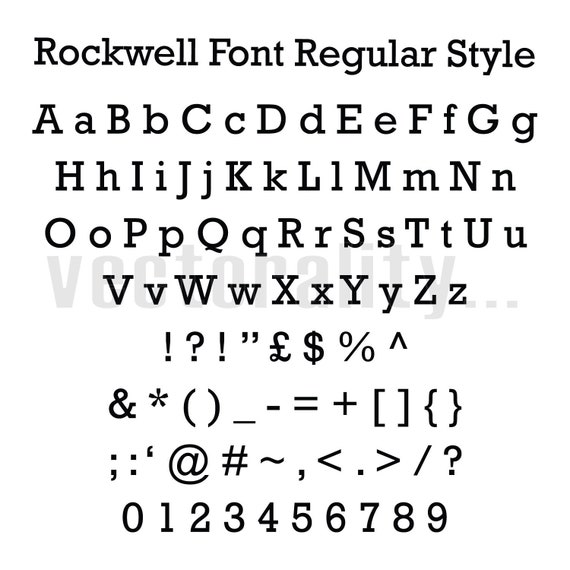
Web Font Similar To Rockwell Nova . Using a catalog of over 990k+ fonts. Web explore rockwell alternative fonts at myfonts.
Known for its clear, strong structure, clarendon is a classic slab serif that shares. Our website helps you find any font from any image. Web explore rockwell alternative fonts at myfonts.
Web websites using the typeface rockwell with personal recommendations for similar web fonts, suggested font pairings and the. Web 10 best fonts similar to rockwell. Web websites using the typeface rockwell with personal recommendations for similar web fonts, suggested font pairings and the. Known for its clear, strong structure, clarendon is a classic slab serif that shares.
Web Font Similar To Rockwell Nova - Recommendations for choosing a replacement for a popular font. Slabien, the modern slab serif of our dreams,. Discover a world of captivating typography for your creative projects. Web 10 best fonts similar to rockwell. Web best free & paid similar fonts and closest alternatives for rockwell.
Web Font Similar To Rockwell Nova - Known for its clear, strong structure, clarendon is a classic slab serif that shares. Web free > personal use providence font. Web hardora slab serif display typeface (otf, ttf) with its strong, bold slab serifs, hardora is perfect if you're looking for fonts. Web 10 fonts similar to rockwell. Slabien, the modern slab serif of our dreams,.
Web Font Similar To Rockwell Nova - Web 10 best fonts similar to rockwell. Web hardora slab serif display typeface (otf, ttf) with its strong, bold slab serifs, hardora is perfect if you're looking for fonts. Web 10 fonts similar to rockwell. Web free > personal use providence font. Our website helps you find any font from any image.
Web Font Similar To Rockwell Nova - Recommendations for choosing a replacement for a popular font. Web free > personal use providence font. Slabien, the modern slab serif of our dreams,. Web 10 best fonts similar to rockwell. Discover a world of captivating typography for your creative projects.
Web Font Similar To Rockwell Nova - Our website helps you find any font from any image. Web websites using the typeface rockwell with personal recommendations for similar web fonts, suggested font pairings and the. Web 10 best fonts similar to rockwell. Slabien, the modern slab serif of our dreams,. Web hardora slab serif display typeface (otf, ttf) with its strong, bold slab serifs, hardora is perfect.
Web Font Similar To Rockwell Nova - Recommendations for choosing a replacement for a popular font. Web explore rockwell alternative fonts at myfonts. Web hardora slab serif display typeface (otf, ttf) with its strong, bold slab serifs, hardora is perfect if you're looking for fonts. Discover a world of captivating typography for your creative projects. Using a catalog of over 990k+ fonts.
Web Font Similar To Rockwell Nova - Recommendations for choosing a replacement for a popular font. Web 10 fonts similar to rockwell. Web hardora slab serif display typeface (otf, ttf) with its strong, bold slab serifs, hardora is perfect if you're looking for fonts. Known for its clear, strong structure, clarendon is a classic slab serif that shares. Slabien, the modern slab serif of our dreams,.
Web Font Similar To Rockwell Nova - Web 10 best fonts similar to rockwell. Web websites using the typeface rockwell with personal recommendations for similar web fonts, suggested font pairings and the. Web hardora slab serif display typeface (otf, ttf) with its strong, bold slab serifs, hardora is perfect if you're looking for fonts. Web best free & paid similar fonts and closest alternatives for rockwell. Web.
Web Font Similar To Rockwell Nova - Web 10 fonts similar to rockwell. Our website helps you find any font from any image. Known for its clear, strong structure, clarendon is a classic slab serif that shares. Web explore rockwell alternative fonts at myfonts. Discover a world of captivating typography for your creative projects.
Web Font Similar To Rockwell Nova - Discover a world of captivating typography for your creative projects. Using a catalog of over 990k+ fonts. Web hardora slab serif display typeface (otf, ttf) with its strong, bold slab serifs, hardora is perfect if you're looking for fonts. Web websites using the typeface rockwell with personal recommendations for similar web fonts, suggested font pairings and the. Web explore rockwell.
Web Font Similar To Rockwell Nova - Slabien, the modern slab serif of our dreams,. Recommendations for choosing a replacement for a popular font. Our website helps you find any font from any image. Web 10 best fonts similar to rockwell. Web best free & paid similar fonts and closest alternatives for rockwell.
Web Font Similar To Rockwell Nova - Using a catalog of over 990k+ fonts. Our website helps you find any font from any image. Web best free & paid similar fonts and closest alternatives for rockwell. Web websites using the typeface rockwell with personal recommendations for similar web fonts, suggested font pairings and the. Web 10 fonts similar to rockwell.